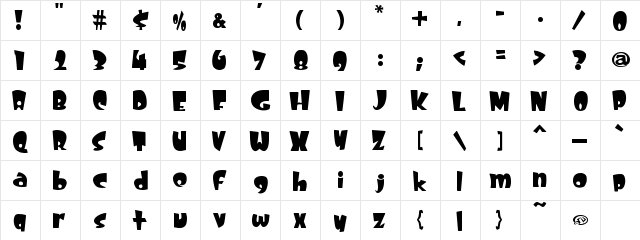
Skooz' me Regular
| Foundry | Chris Brown (visual design) |
| Designer | Chris Brown |
Design Context for Skooz' me Typeface
Skooz' me is a composed and adaptable typeface that performs quietly and consistently across a wide range of design contexts.